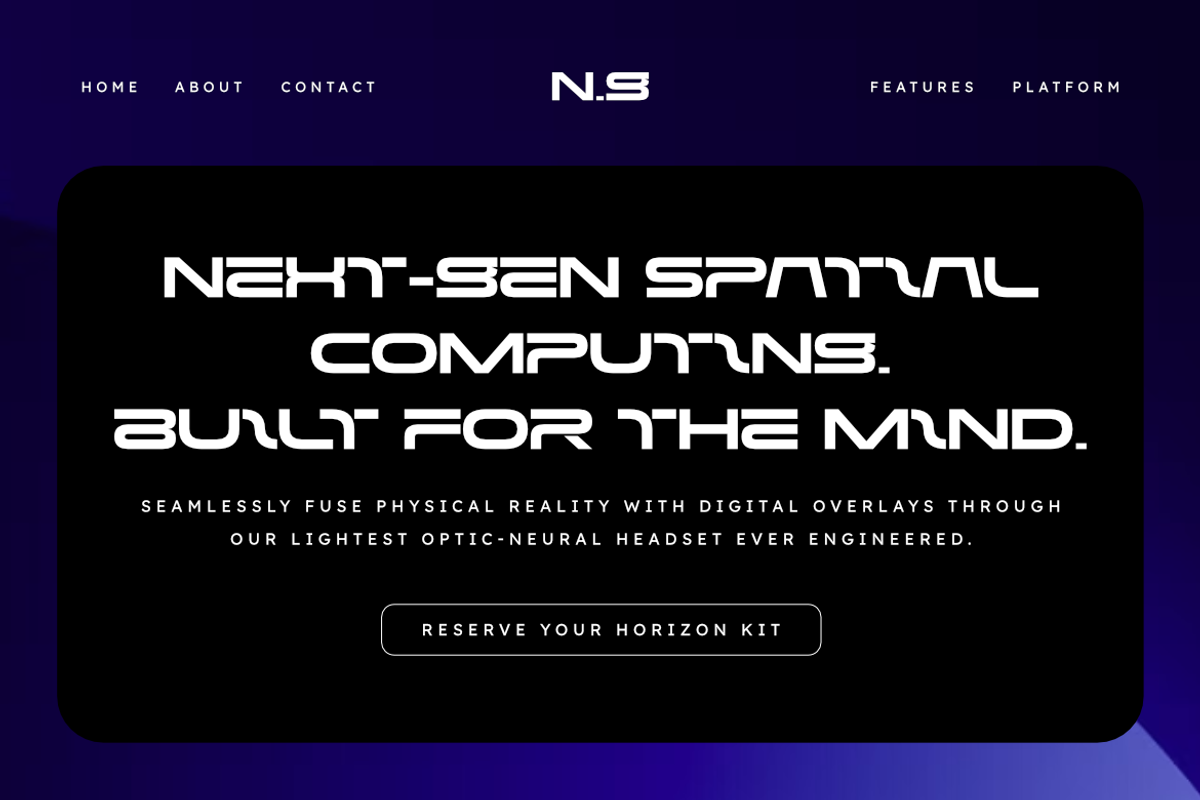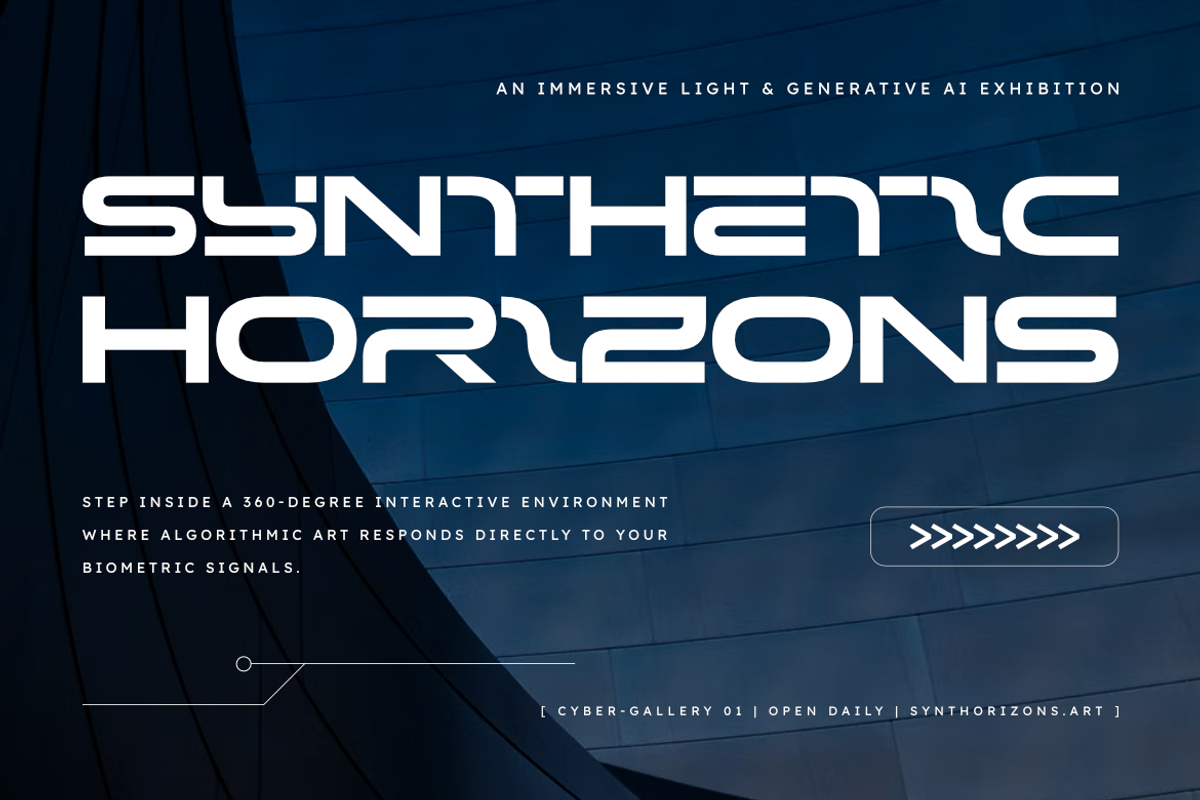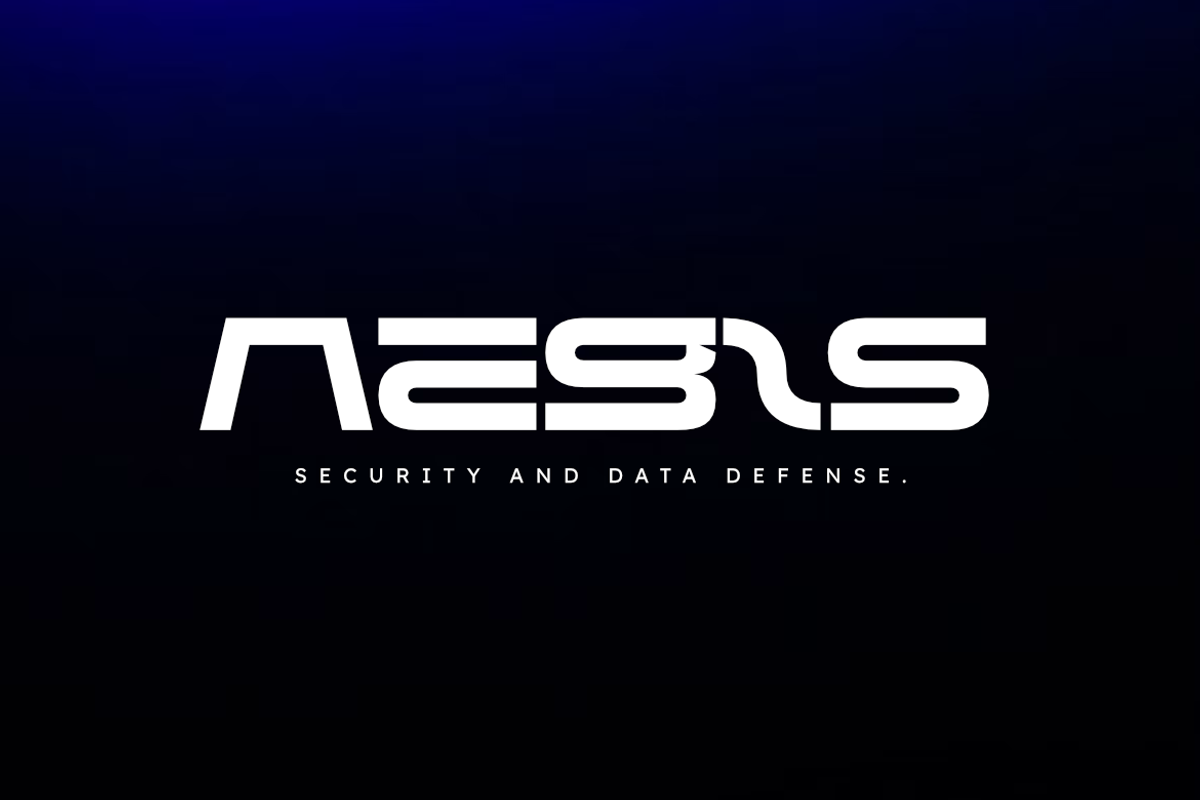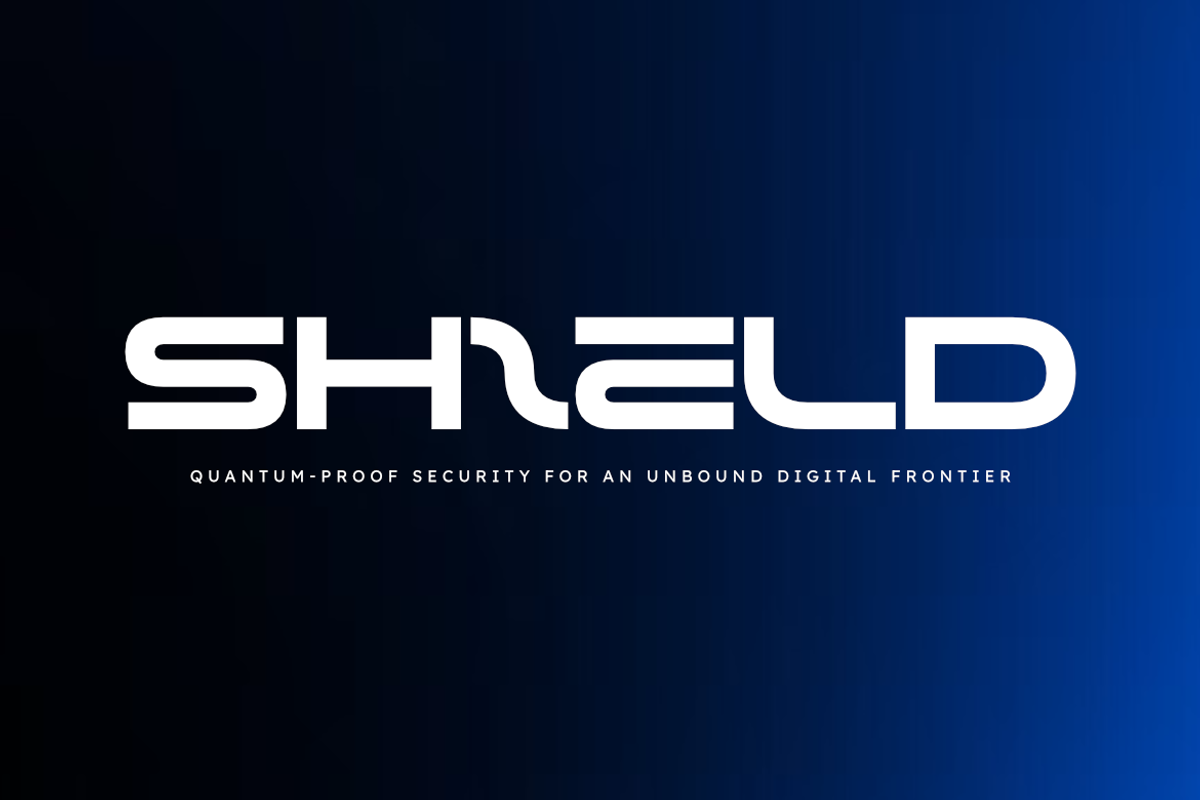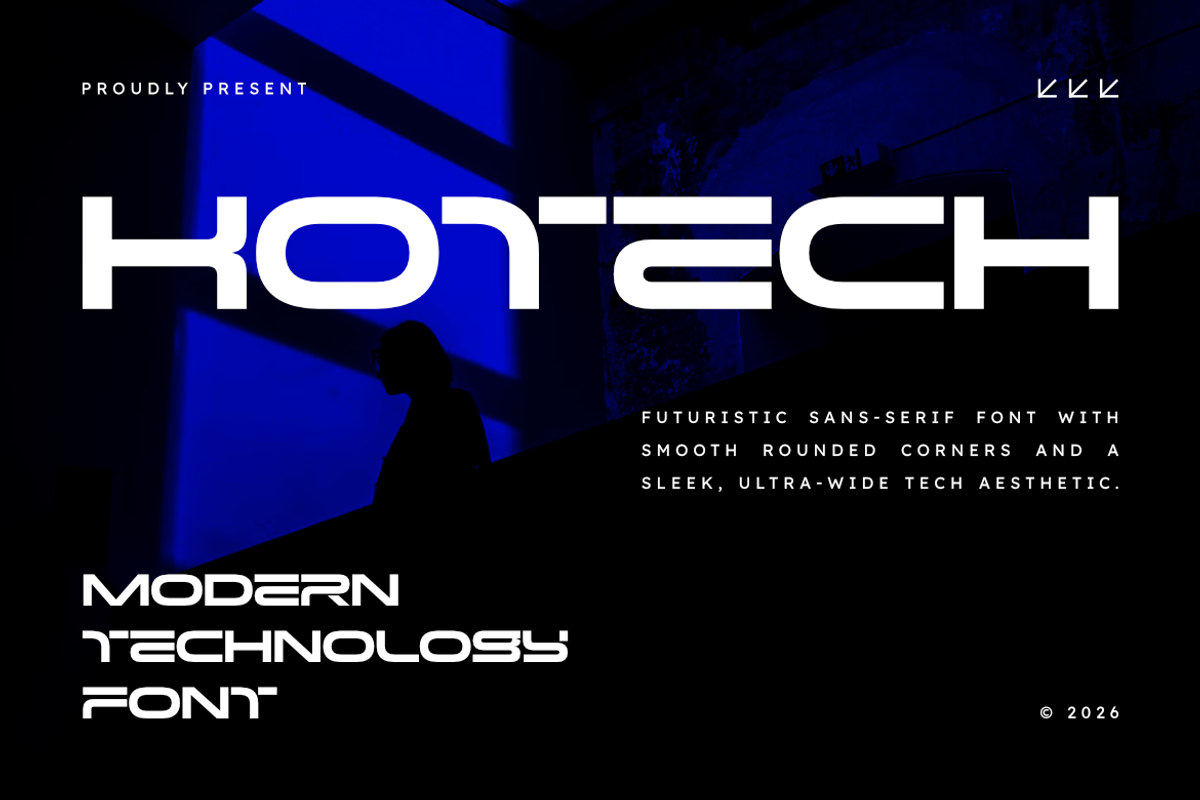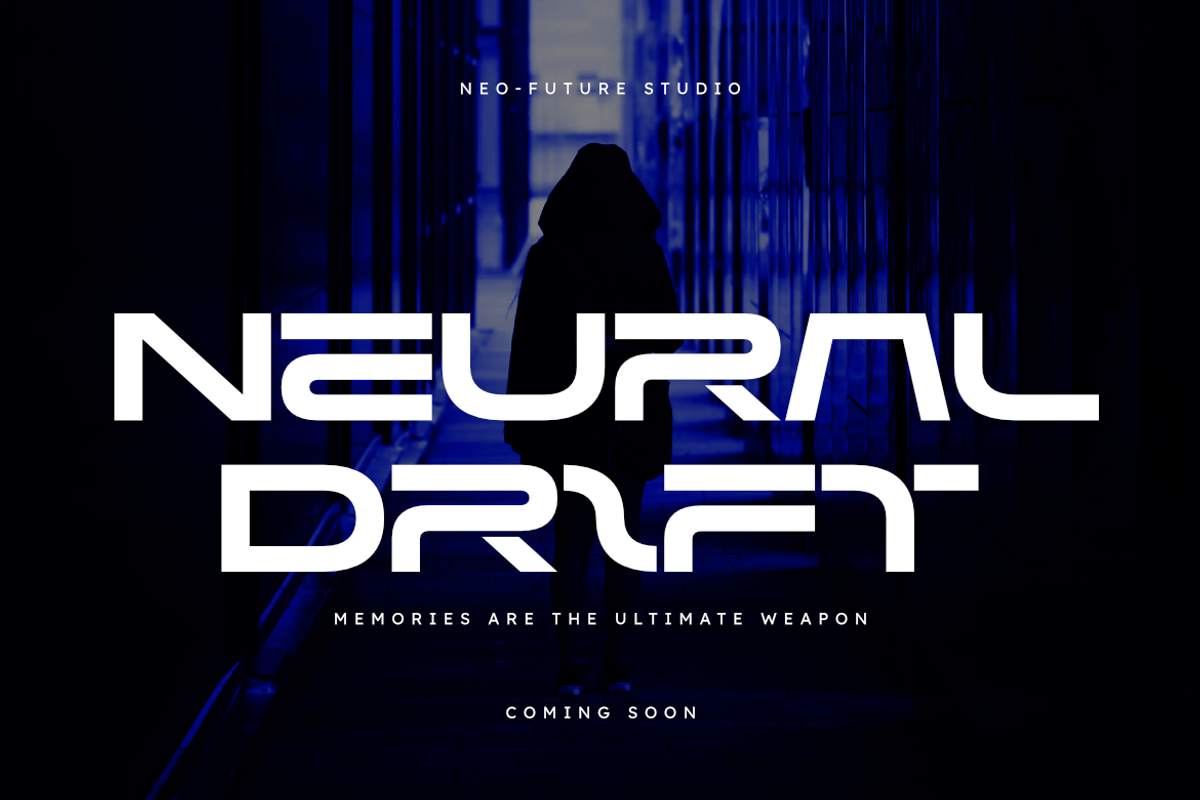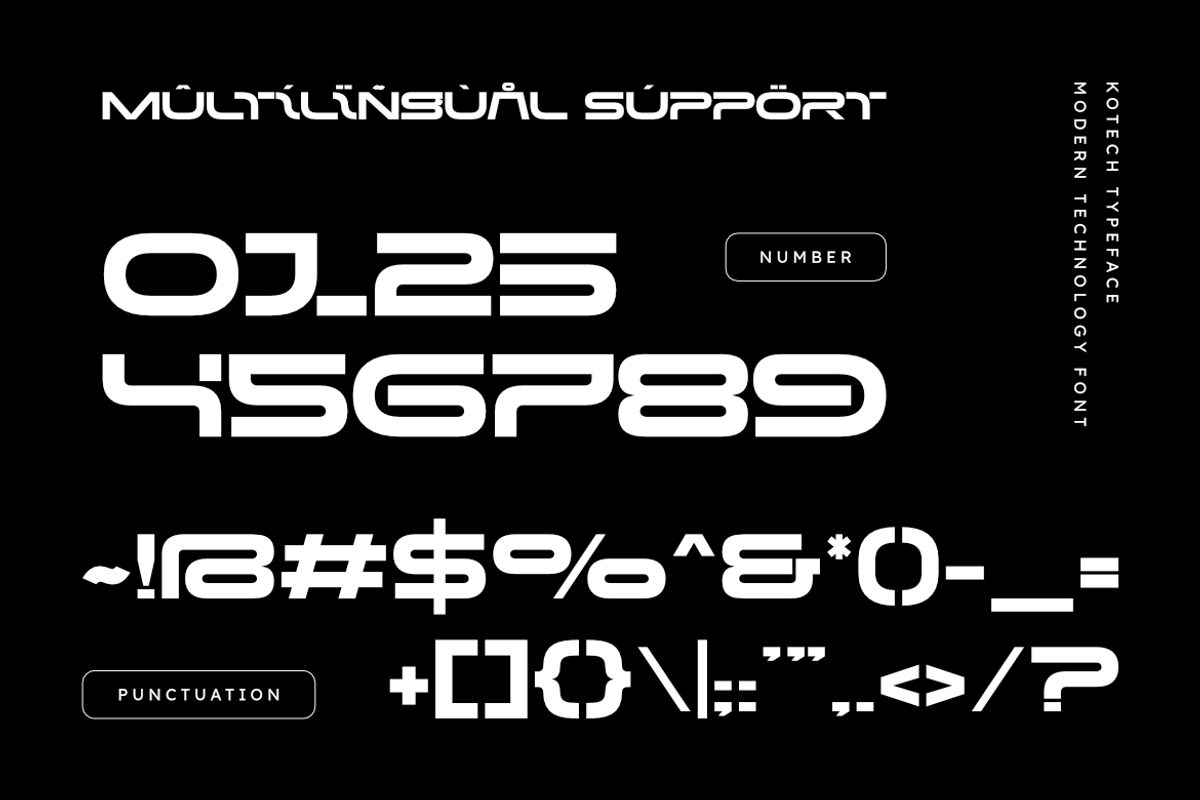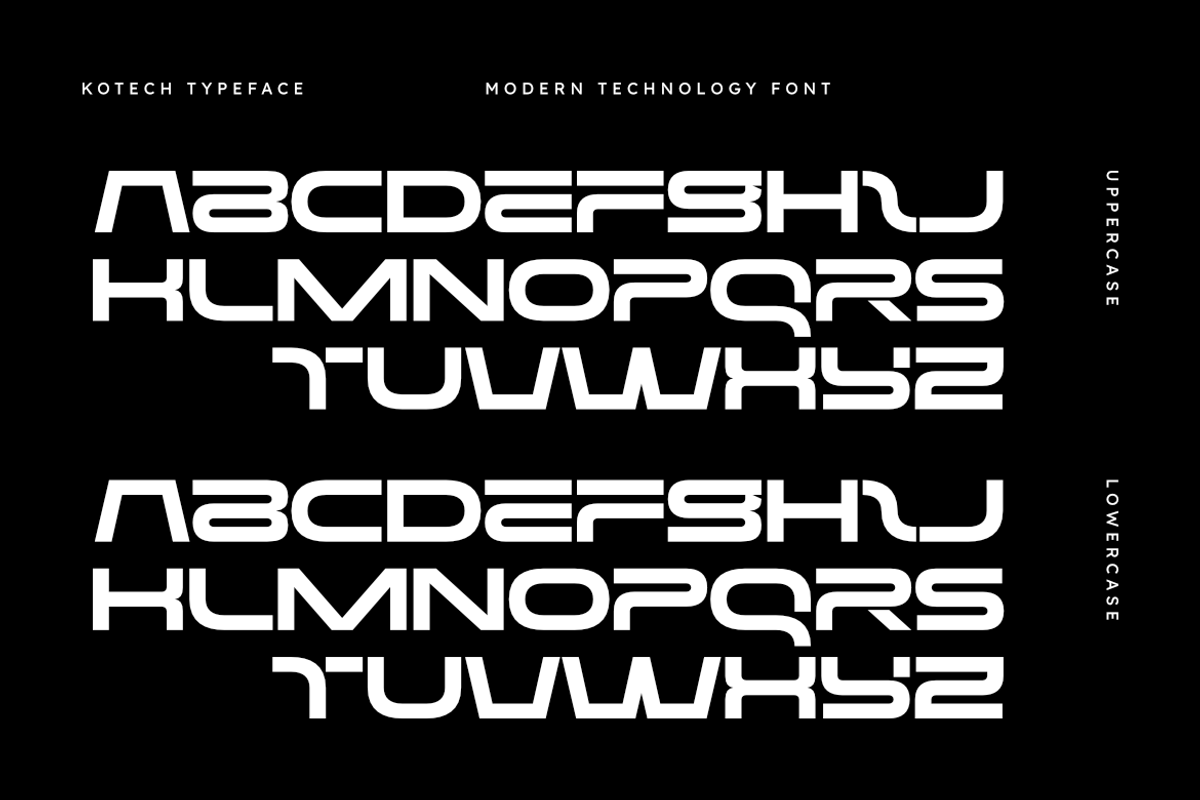
Kotech - Modern Tech Font
Kotech is a futuristic sans serif display font featuring ultra-wide proportions, smooth rounded corners, and a sleek geometric construction. Its distinctive letterforms combine bold horizontal structures with streamlined details to create a clean yet futuristic technological aesthetic.
Designed for modern visual communication, Kotech brings a strong digital personality to headlines, logos, brand identities, and large-scale typography. Its wide proportions and smooth geometric forms create an instantly recognizable appearance while maintaining a polished and contemporary feel.
Kotech is ideal for technology startups, gaming identities, software branding, digital products, futuristic campaigns, sci-fi graphics, UI/UX concepts, and modern visual identities that need a distinctive technological edge.
Uppercase Letters
Ultra-Wide Proportions
Rounded Geometric Forms
Futuristic Sans Serif Style
Sleek Letterform Construction
Modern Technology Aesthetic
Technology Branding
Tech Startup Logos
Software Identity
Gaming Branding
Digital Product Identity
App Branding
UI/UX Design
Futuristic Campaigns
Sci-Fi Titles
Technology Headlines
Digital Advertising
Modern Visual Identity